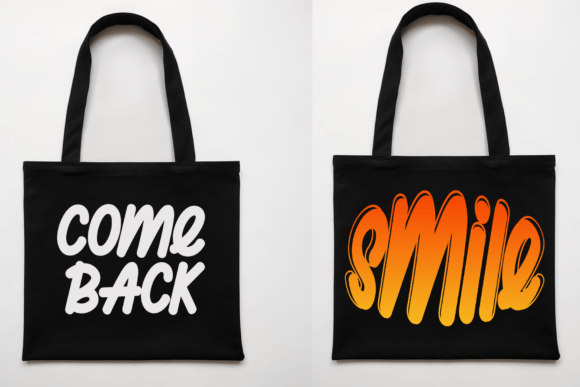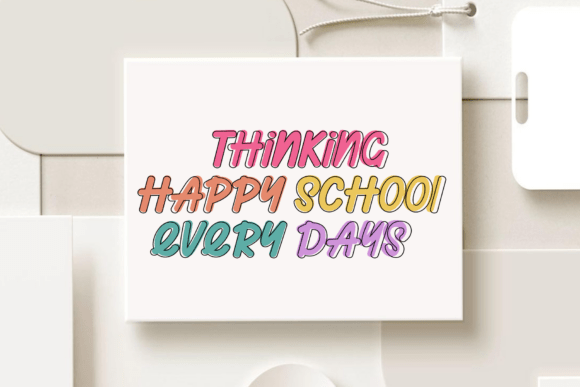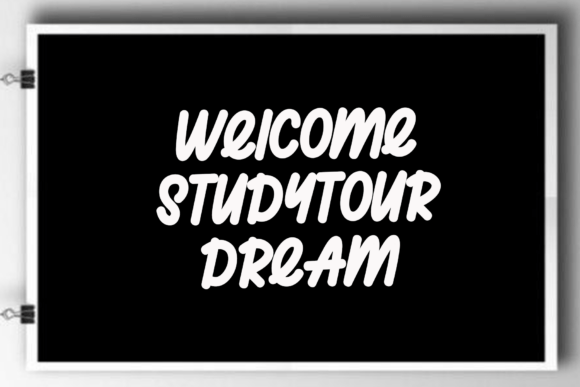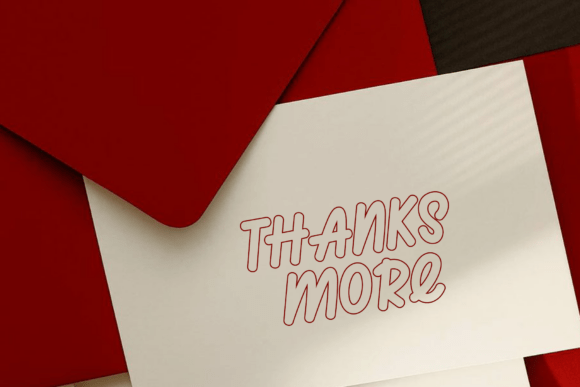
Introducing Daily School: The Ultimate Stylish Handwritten Font for Creative Projects
In the world of typography, a good font can make all the difference in elevating a design from ordinary to extraordinary. For designers and crafters looking for a stylish and modern handwritten font that exudes elegance and playfulness, Daily School is an excellent choice. This beautiful font combines the best of both worlds, blending modern sophistication with a touch of whimsy, making it perfect for a wide range of creative projects.
The Characteristics of Daily School Font
Daily School is a stylish handwritten font that boasts flowing curves and well-balanced strokes, creating a sense of fluidity and effortless style. The bold yet graceful letterforms add a confident personality to any design, making it ideal for projects that require a touch of sophistication and elegance. The font’s unique stylistic alternates and ligatures give it a one-of-a-kind character, allowing designers to create expressive typography that feels both casual and refined.
What Makes Daily School Font Stand Out
So, what sets Daily School apart from other fonts? Here are a few key features that make it a standout choice for designers and crafters:
- Modern Elegance: Daily School’s sleek and sophisticated design makes it perfect for modern creative projects that require a touch of elegance.
- Playful Charm: The font’s playful curves and whimsical letterforms add a touch of personality to any design, making it ideal for projects that require a bit of whimsy.
- Unique Stylistic Alternates and Ligatures: The font’s unique stylistic alternates and ligatures give it a one-of-a-kind character, allowing designers to create expressive typography that feels both casual and refined.
- Effortless Style: Daily School’s flowing curves and well-balanced strokes create a sense of fluidity, making it perfect for projects that require a touch of sophistication and elegance.
Perfect for a Wide Range of Creative Projects
Daily School is a versatile font that can be used for a wide range of creative projects, including:
- Branding: The font’s modern elegance and playful charm make it perfect for branding projects that require a touch of sophistication and personality.
- Social Media Posts: Daily School’s unique stylistic alternates and ligatures make it ideal for social media posts that require a bit of whimsy and personality.
- Invitations: The font’s elegant and refined design makes it perfect for invitations that require a touch of sophistication and elegance.
- Fashion-Forward Layouts: Daily School’s modern elegance and playful charm make it ideal for fashion-forward layouts that require a touch of sophistication and personality.
Why Choose Daily School Font?
So, why choose Daily School font for your next creative project? Here are a few reasons why:
- Unique and Distinctive: Daily School’s unique stylistic alternates and ligatures make it a one-of-a-kind font that will set your design apart from the rest.
- Effortless Style: The font’s flowing curves and well-balanced strokes create a sense of fluidity, making it perfect for projects that require a touch of sophistication and elegance.
- Versatile: Daily School can be used for a wide range of creative projects, from branding and social media posts to invitations and fashion-forward layouts.
- Easy to Read: The font’s clear and concise letterforms make it easy to read, even at small sizes.
In conclusion, Daily School is a stylish handwritten font that is perfect for designers and crafters looking for a modern and elegant font with a touch of playfulness. Its unique stylistic alternates and ligatures, flowing curves, and well-balanced strokes make it a distinctive choice for creative projects. Whether you’re working on a branding project, social media post, invitation, or fashion-forward layout, Daily School is a versatile font that will add a touch of sophistication and personality to your design.